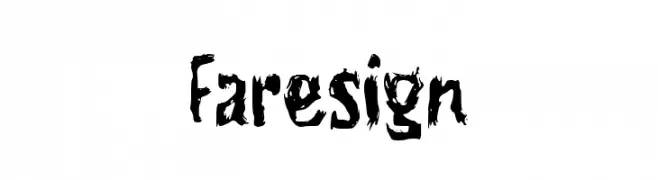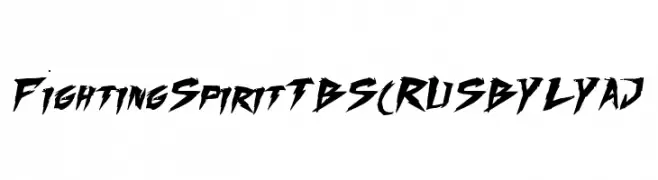
A bold, angular font with sharp edges and a dynamic, rebellious style.
A jagged, thorn-like decorative font with sharp, elongated strokes.
A bold, aggressive font with sharp, jagged edges, perfect for impactful designs.
A bold, distressed font with jagged, chaotic strokes.
A distressed, decorative font with jagged edges and a chaotic style.
A bold, distressed font with a grunge-like, textured appearance.
A decorative font with a rugged, organic texture and irregular edges.
A bold, jagged font with a rugged, distressed appearance.
A distressed, grungy font with bold, jagged edges and a chaotic aesthetic.
A bold, distressed font with a rugged, textured appearance.